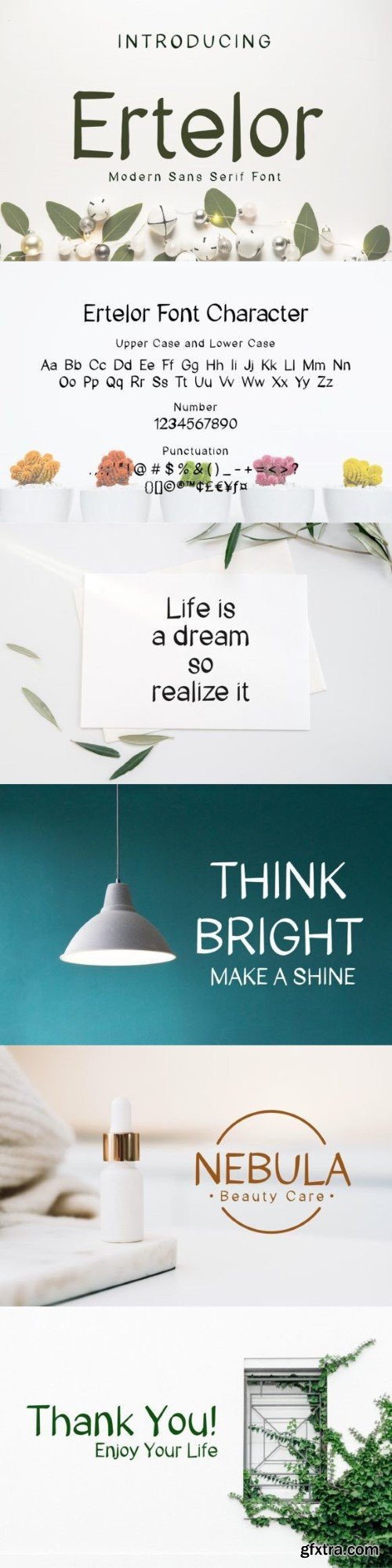
艾特勒 Font
Ertelor: A playful sans-serif font that exudes fun and creativity. Perfect for adding a touch of whimsy to your designs, Ertelor is ideal for anything from posters to invitations. Let your imagination run wild with this delightful typeface!